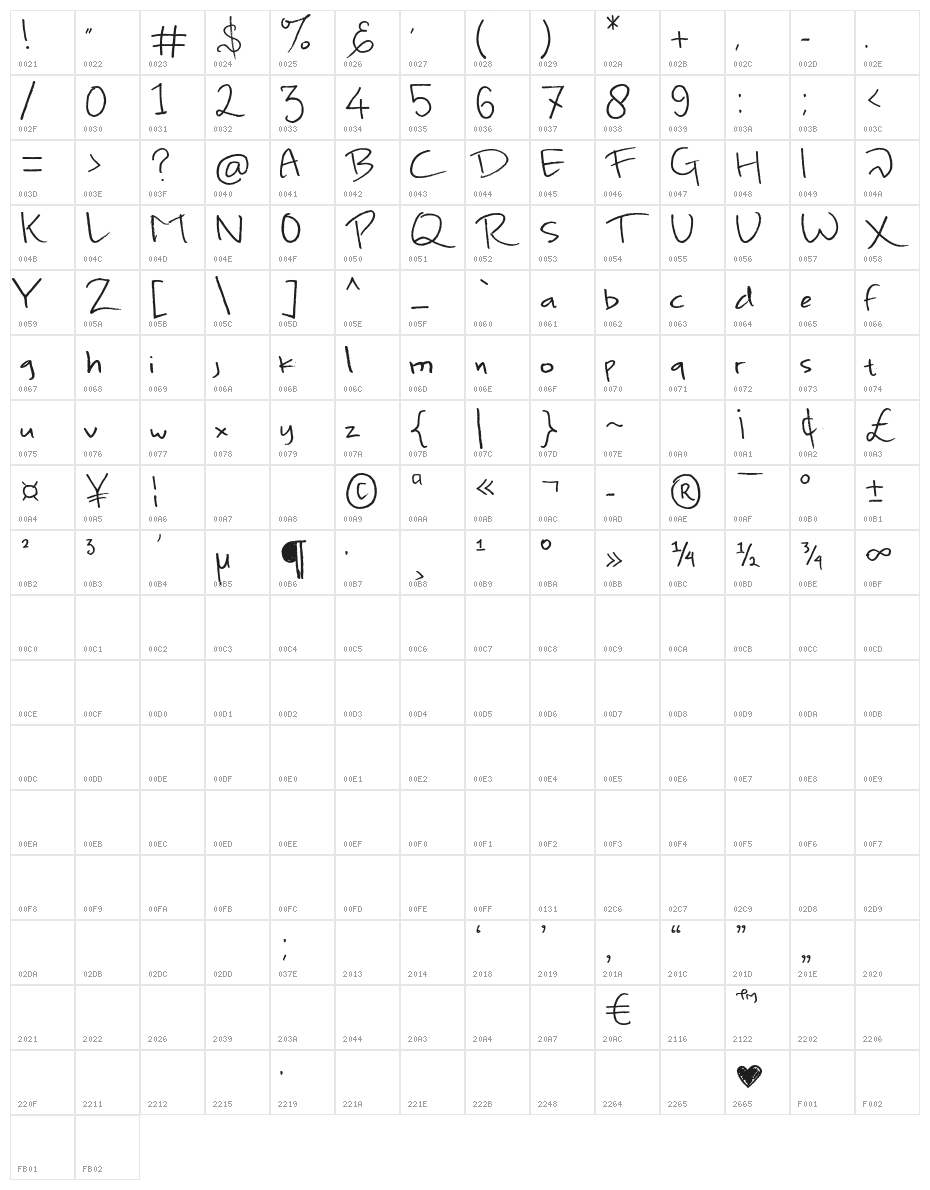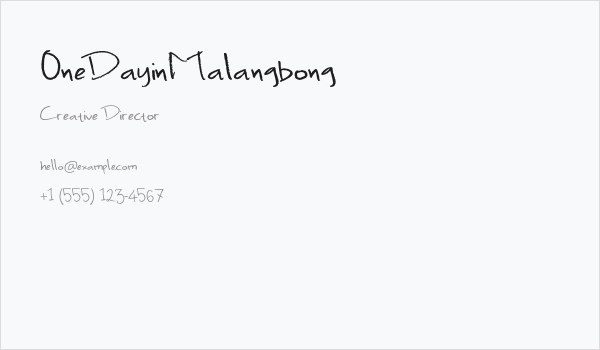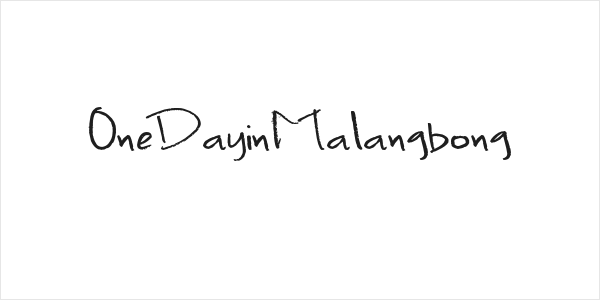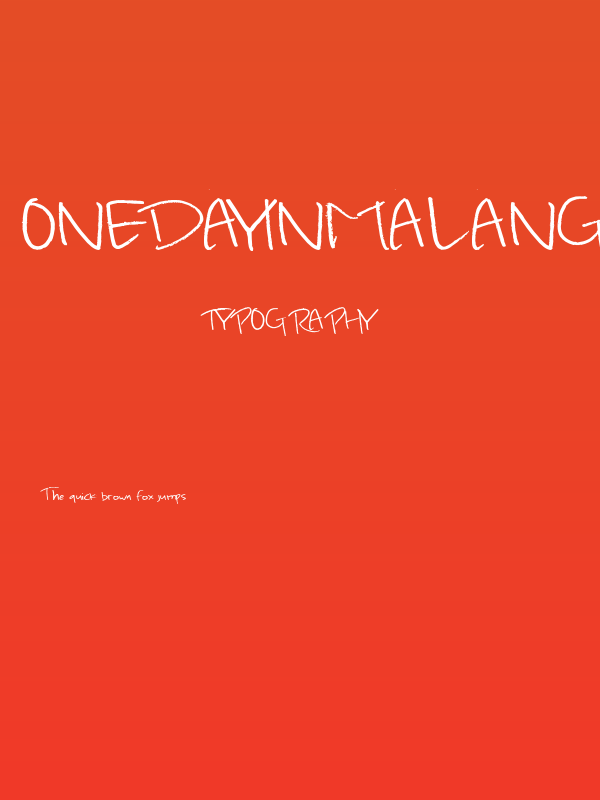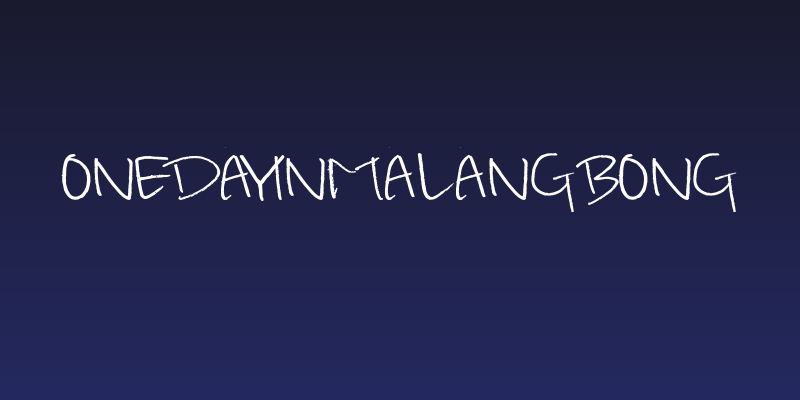
OneDayinMalangbong Font
OneDayinMalangbong Description
This font features a playful and casual handwritten style, characterized by its loose and informal strokes. The uppercase letters exhibit a slightly uneven baseline, adding to the whimsical nature of the design. The lowercase letters maintain a consistent flow, with rounded edges and varying stroke widths that enhance its handwritten appeal. Numbers are bold and slightly larger, ensuring readability. Special characters are creatively integrated, maintaining the overall playful aesthetic. This font exudes a friendly and approachable vibe, making it suitable for projects that require a personal touch.
| Proposed Projects | Ideal for greeting cards, personal blogs, children's books, and informal branding. |